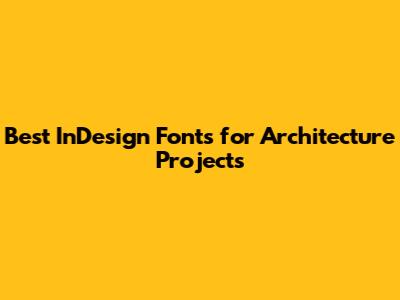
Hey there, architecture enthusiasts and design aficionados! Ever wondered how InDesign fonts can elevate your architectural projects from so-so to absolutely stunning? Choosing the right typography is crucial. Think of it like this: your font choices are the voice of your designs. They communicate the essence of your vision, from the sleek modernity of a high-rise to the cozy warmth of a residential home. That's why we are diving deep into the world of InDesign fonts for architecture, helping you pick the perfect typefaces to bring your architectural dreams to life. We will explore various font categories that are perfect for architectural projects. Plus, we'll give you tips on pairing fonts to create visually cohesive and compelling designs. So, grab your favorite coffee, settle in, and get ready to unlock the secrets of typography in architecture.
The Significance of Font Selection in Architectural Design
InDesign fonts are more than just pretty letters; they're the silent communicators of your architectural narrative. They convey your project's mood, style, and brand identity. Selecting the right font can make the difference between a project that feels disjointed and one that feels unified and professional. The role of typography in architectural design is often underestimated, but the truth is, fonts influence how viewers perceive a design. Is your project a cutting-edge minimalist structure? A clean, sans-serif font might be the perfect fit. Is it a historic restoration? A classic serif could add an air of tradition. The right font sets the tone and can instantly communicate your design's personality and purpose. It can express the feeling, whether it is modern, historic, or something else entirely. Moreover, consistency is key. Using a consistent set of fonts throughout your project, from the title block to the body text, enhances readability and creates a polished, professional look. This attention to detail shows your commitment to quality. The appropriate font can help your work stand out, making it appealing and impressive. That is why choosing InDesign fonts is one of the important keys for creating a masterpiece that will truly make your work shine.
Remember, your font choices are like the brushstrokes of a digital artist. They add depth, character, and clarity to your work. A carefully selected font can improve readability, improve visual interest, and reflect your architectural style. The goal is to make a project more appealing and to strengthen its communication. It's about ensuring your designs look and feel as good as they possibly can. So, let’s explore the world of InDesign fonts and select the perfect font for your project!
Decoding Font Styles for Architectural Projects
When you're choosing InDesign fonts for architecture, it helps to understand the different styles available. There is no one-size-fits-all approach. Your choice will depend on your project's specific requirements. Let’s break down the major font families, looking at their unique characteristics and applications in architectural design.
Serif fonts, like Times New Roman, Garamond, or Georgia, are characterized by small decorative strokes, or serifs, at the end of each letter. These fonts have a classic, traditional vibe and often convey a sense of authority, reliability, and history. In architectural design, serif fonts are excellent for projects that aim to evoke a sense of tradition, such as historic building renovations, classical designs, or projects that celebrate heritage. The serifs add a touch of elegance and make the text appear more refined. Serif fonts are also highly readable, making them ideal for long-form text like project descriptions and detailed information in plans and specifications. Their traditional style gives a feeling of familiarity and stability, providing a clear and professional appearance to your documents. When using serif fonts, be mindful of the weight and size of the font. In large headlines, they can appear dated. However, for body text, the serifs assist the eye in following the lines, ensuring the text is easy to read. Therefore, serifs are your go-to fonts when you want to create a sense of history or add an element of elegance and formality.
Sans-serif fonts, such as Arial, Helvetica, and Open Sans, do not have serifs. This gives them a modern, clean, and minimalist appearance. These fonts are very versatile, and they are perfect for contemporary architectural projects. Their sleek appearance is a fantastic match for modern designs, making them ideal for modern homes or innovative commercial structures. The crisp lines of sans-serif fonts are highly readable on digital screens and in print. Because of that, they work exceptionally well in headlines, titles, and callouts in architectural presentations and documents. Because of their simplicity, sans-serif fonts are easy to read from a distance. That makes them excellent for signage and presentations. Their clean design is excellent for communicating complex information without overwhelming the viewer. You can create a visually engaging and informative presentation by combining these fonts with clear layouts and images. Sans-serif fonts also work well in branding and architectural logos. They give an impression of modernity and professionalism. This is why many architectural firms prefer sans-serif fonts to help create a strong visual identity.
Display Fonts
Display fonts are designed for headlines, titles, and other elements that need to grab attention. They often have unique and eye-catching designs, adding personality to your architectural projects. These fonts are not always the best choice for body text because they can be difficult to read in long passages. However, they are perfect for creating visual interest and emphasizing particular points in architectural presentations, posters, and other promotional materials. Display fonts can range from elegant, hand-drawn styles to bold, geometric shapes. They allow you to add creativity and personality to your work. However, they must be used carefully so they do not make the overall design seem cluttered. Display fonts should be used sparingly and strategically, complementing the other fonts in your design. They work wonders in architectural proposals or any marketing material, but make sure the text is short. To create a striking and memorable visual experience, use them in conjunction with complementary fonts, layouts, and design features. The proper use of display fonts can improve your projects and help them be memorable.
Monospace Fonts
Monospace fonts, like Courier New, are different because each letter and character has the same width. They are more frequently used in coding and technical documents. However, they also have a unique aesthetic that can be used in architectural design. While not ideal for extensive body text, monospace fonts can be used to showcase technical details, diagrams, or specifications. Their uniform width gives a sense of order and precision. Because of this, they are well-suited for architectural plans, where consistency is important. Monospace fonts are great for creating a specific mood or style, especially when used in combination with other fonts. Using them in architectural design will give a project a clear, technical, and professional appearance. The right use of these fonts will make sure your technical details are not overlooked. So, use these fonts wisely, and your project will be more comprehensive.
Perfect Font Pairings for Your Architectural Creations
Choosing InDesign fonts is just half the battle; how you pair them significantly impacts your design's overall effectiveness. A great font pairing harmonizes fonts to create a visually appealing, cohesive presentation. Now, let’s explore some great tips for pairing fonts.
Combining Serif and Sans-Serif
This is a classic combination. Pairing a serif font for headlines and titles with a sans-serif font for body text is a fantastic way to balance elegance and readability. This contrast creates visual interest and makes your content easy to read and digest. Consider using a serif font like Playfair Display for your headings and Open Sans for the body. The serif font provides a touch of sophistication, while the sans-serif ensures the text is easy to read. This combination is great for projects that aim to balance tradition and modernity. It provides a harmonious balance between visual interest and readability.
Complementary Sans-Serif Pairings
If you prefer a contemporary look, use sans-serif fonts. Combining fonts like Montserrat (for headings) with Lato (for body text) gives a clean, modern aesthetic. Both fonts have similar geometric qualities, which ensures a cohesive appearance. The contrasting weights and styles add depth and visual interest without overwhelming the reader. This pairing is excellent for architectural projects that demand a minimalist, streamlined design, such as modern office buildings or contemporary residential designs. This helps achieve a strong, consistent look that reflects the project's modern design.